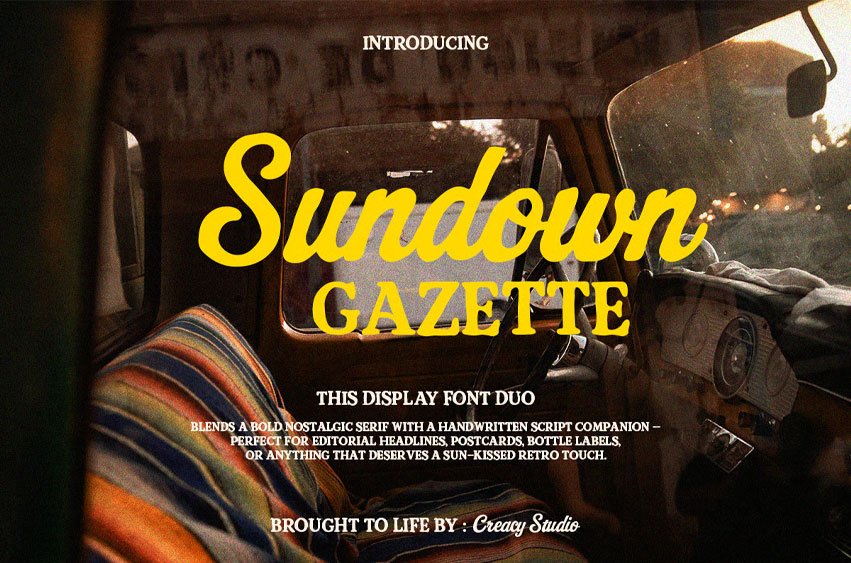
Sundown Gazette Font is a retro-inspired font duo that brings the golden soul of vintage Americana to your creative work. It features a charming serif paired with a smooth handwritten script – perfect for warm editorial vibes, rustic branding, and anything sun-kissed and sentimental.
This display font duo is ideal for projects that evoke memory and mood, from lifestyle quotes and retro packaging to album covers, travel blogs, and vintage labels.
Perfect for:
- Editorial headlines & zines
- Postcards, posters & prints
- Retro branding & packaging
- Lifestyle content & social media graphics
Pair them together or use them separately for a versatile vintage look. Whether you’re designing for screen or print, Sundown Gazette delivers character with every letter.